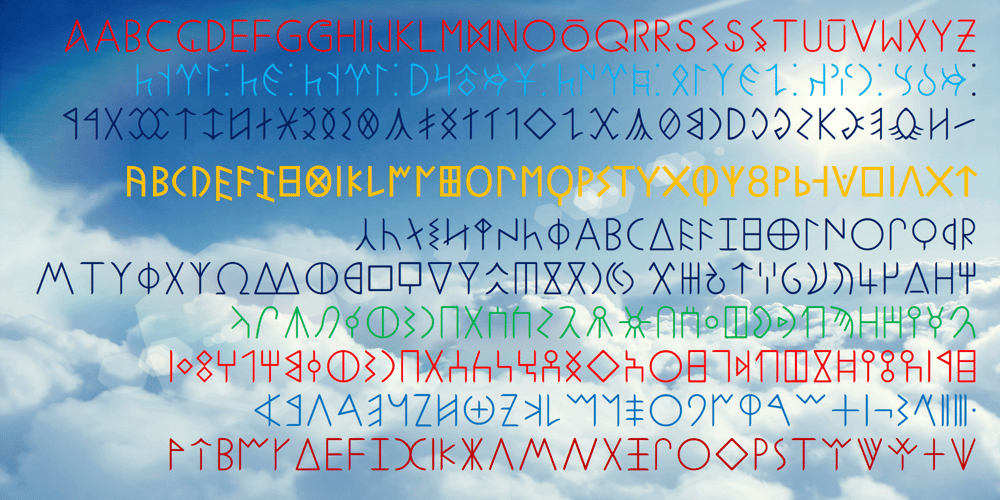
Ongunkan All Runic Unicode
Ongunkan All Runic Unicode font
Ongunkan All Runic Unicode Font Family was designed by Osman Nuri ALKAN and published by Runic World Tamgacı. Ongunkan All Runic Unicode contains 2 styles and family package options. The product of 5 months of work.This unicode font supports 1 latin and 20 ancient languages. When you install this font, the latin alphabet will appear if you do not have the appropriate software. Although there are other unicode fonts that print these ancient texts, this font has the design I use in all my fonts. That’s the difference. You can easily use this font with related software. https://www.babelstone.co.uk/Software/BabelPad.html you can choose my font with babelstone babelpad software at this address and write it here and then copy and paste it to the relevant place.This font includes the following languages.Latin, Old Hungarian, Old Turkic, Old Italic, Runic, Tifinagh, Lycian, Lydian, Carian ,Phoenician, Cypriot, Ogham, Old South Arabian, Old North Arabian, Old Percian, Ugaritic, Brahmi, Old Permic, Hatran and Linear B.This is a unicode font. Please learn how to use it and buy it.